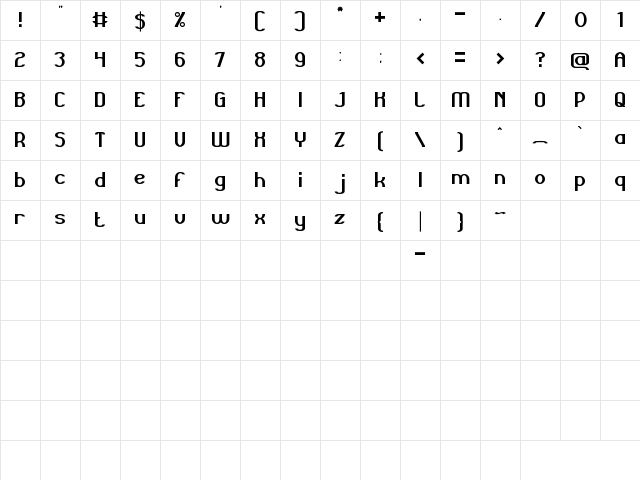
GRAND PRIX Regular Free Font
GRAND PRIX Regular
Design Context for GRAND PRIX
GRAND PRIX is a composed and adaptable typeface that performs quietly and consistently across a wide range of design contexts.